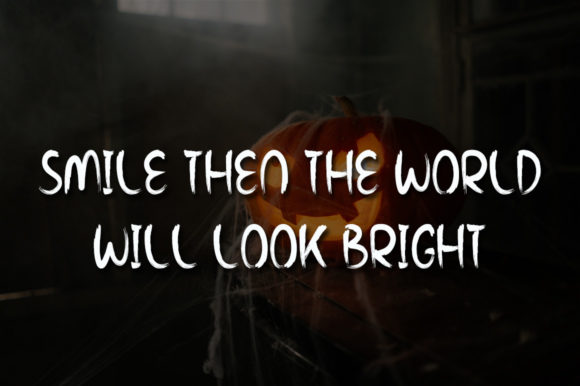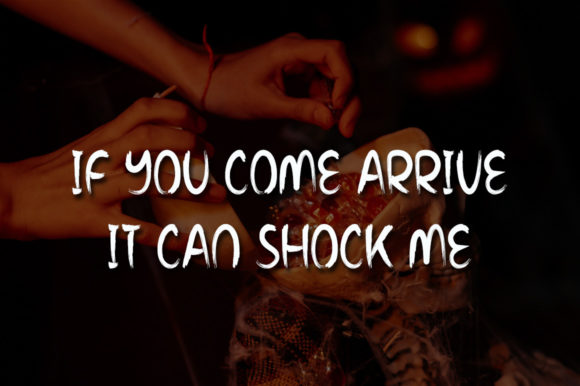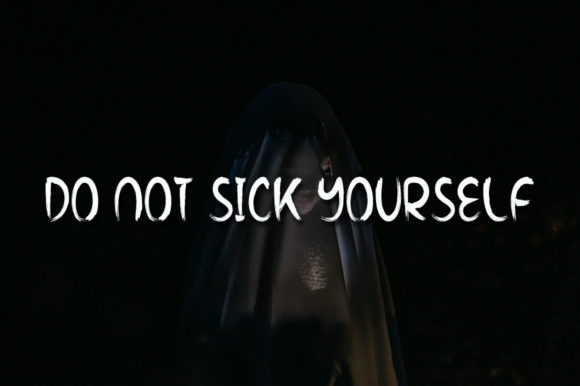
Introduction to Peek a Boo Font
You know that moment when you’re working on a creative project and you’re stuck searching for the perfect font to bring it all together? That’s exactly where I found myself a few weeks ago, and that’s when I stumbled upon the Peek a Boo Font. This cool and brushed display font was exactly what I needed to take my design to the next level.
As a designer, having access to high-quality fonts like Peek a Boo Font is invaluable. Not only does it save you time, but it also ensures that your design looks professional and polished. And the best part? It’s a free download, making it an essential design resource for any creative project.
Key Features of Peek a Boo Font
- High-quality, hand-drawn design for a unique and creative project.
- Features a playful and whimsical design, perfect for children’s books, educational materials, or any project requiring a lighthearted tone.
- Has a large character set, including uppercase and lowercase letters, numbers, and punctuation marks.
Honest Review: Peek a Boo Font
I recently had the chance to dive into the Peek a Boo Font, a free download available for designers looking to elevate their creative projects. As a design resource, I was curious to see what this font had to offer.
On the positive side, I found that the Peek a Boo Font is incredibly versatile. It features a range of fun and playful styles that can be used for a variety of creative projects, from children’s books to social media graphics. The transparent background is also a great touch, making it easy to customize and layer with other design elements. ✨
Here are a few things that work well with this font:
- High-quality design that looks great on screen
- Perfect for adding a touch of whimsy to your creative project
However, I did notice a few limitations: ⚠️
- The font may not be suitable for formal or professional designs
Overall, I’d say that the Peek a Boo Font is a great addition to any design library. While it may not be perfect, its unique style and high-quality design make it a valuable resource for creative projects.
Common Use Cases for Peek a Boo Font
Peek a Boo Font is perfect for a variety of creative projects, including graphics, presentations, and digital art. Its transparent background and high-quality design make it a valuable resource for designers and non-designers alike.